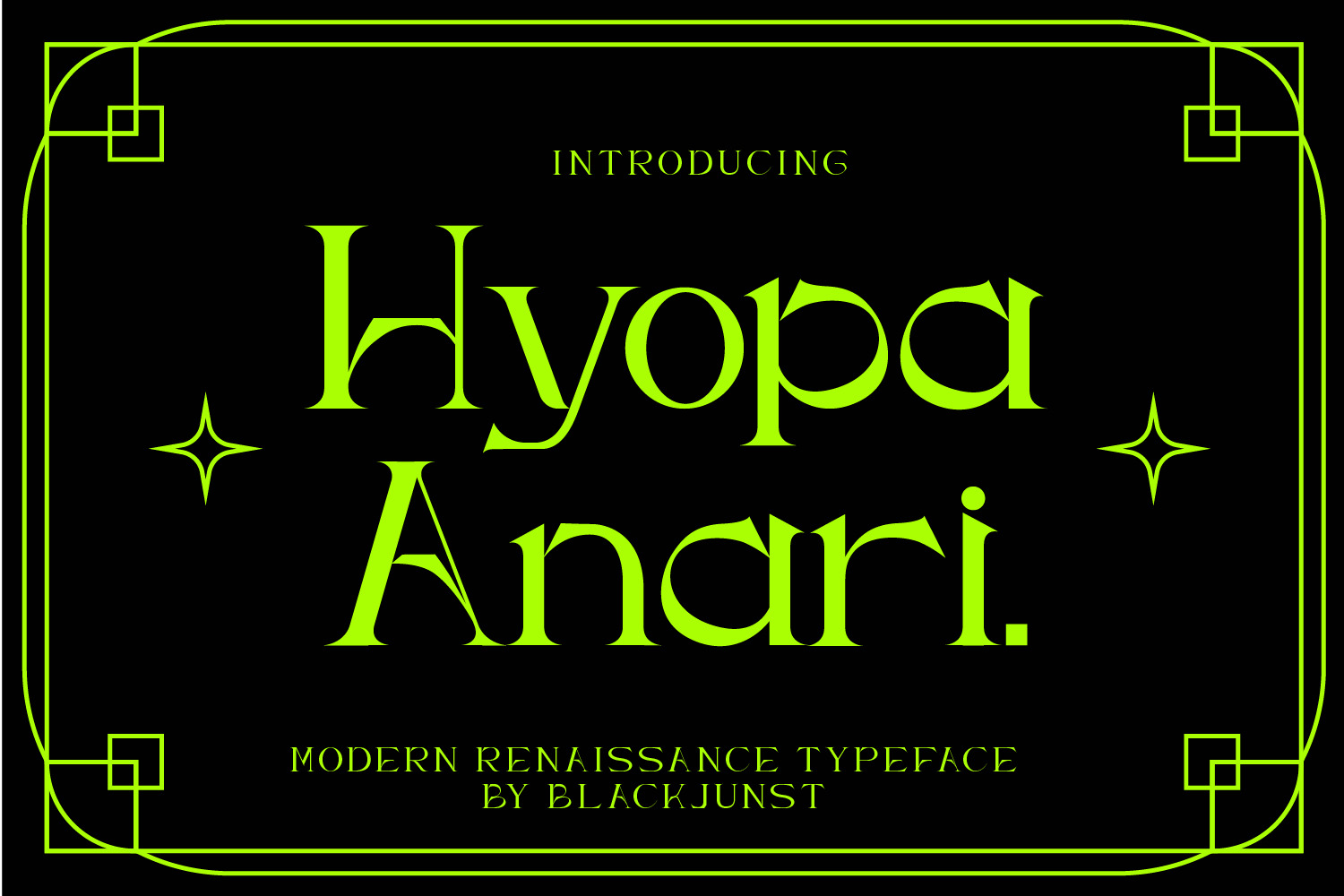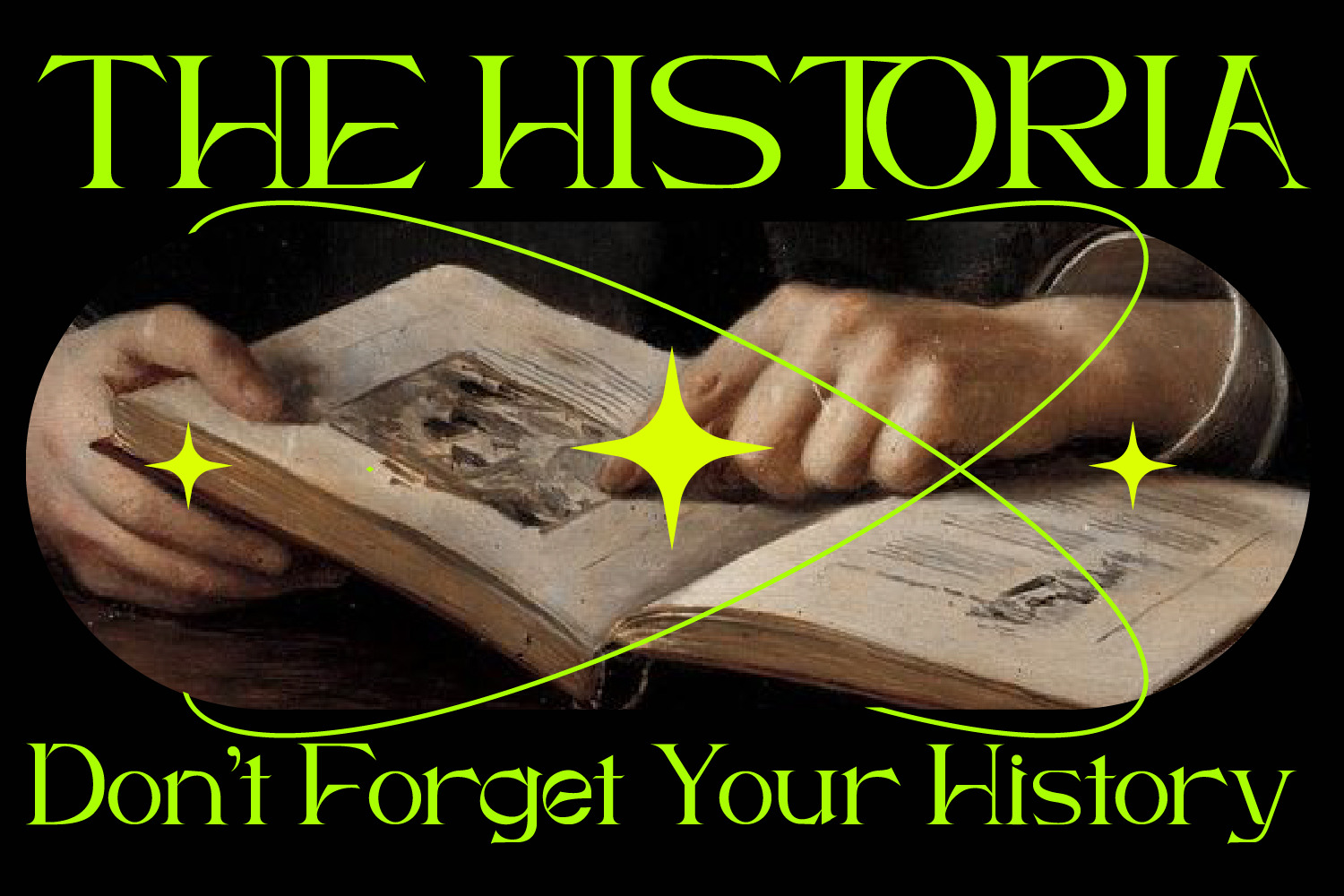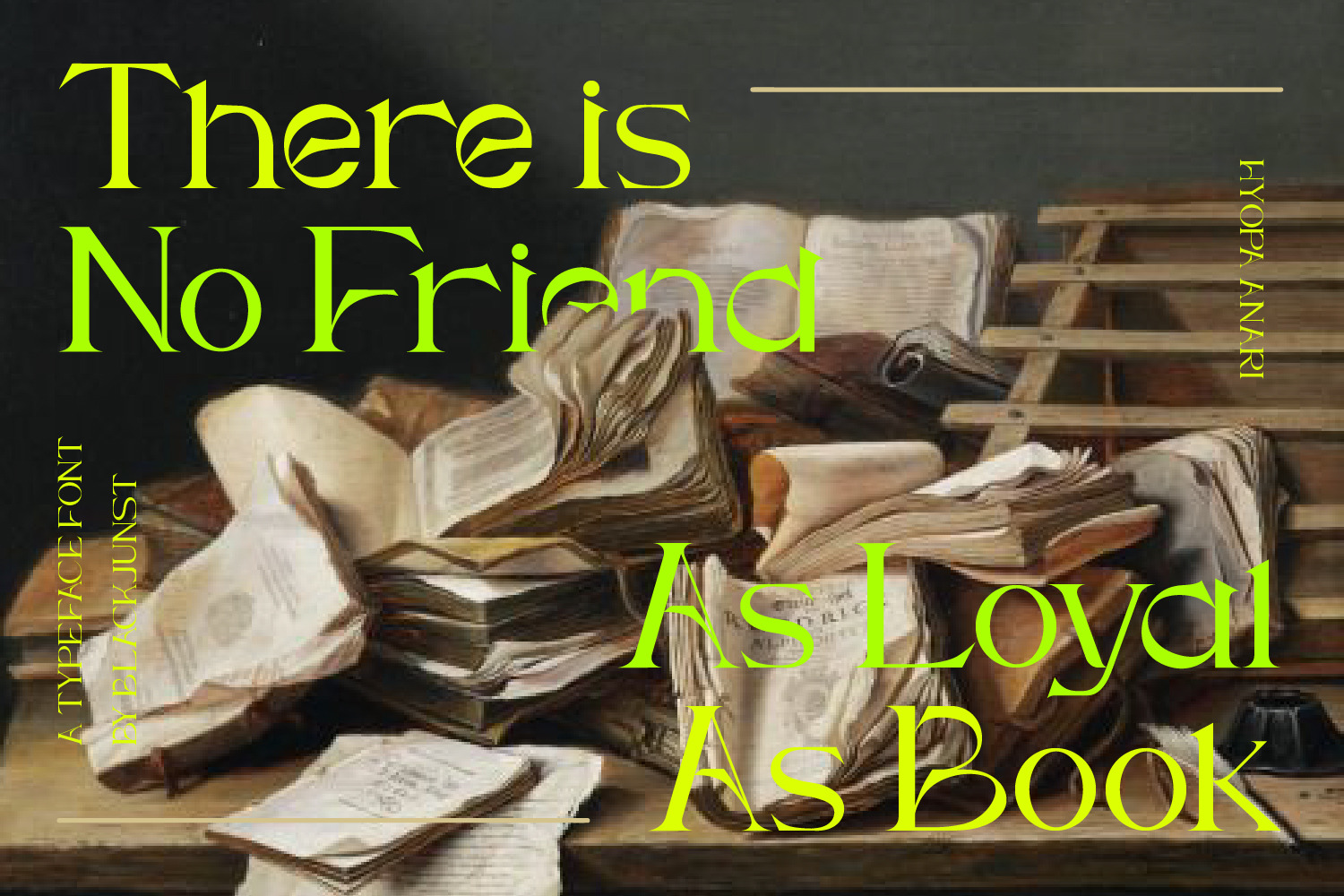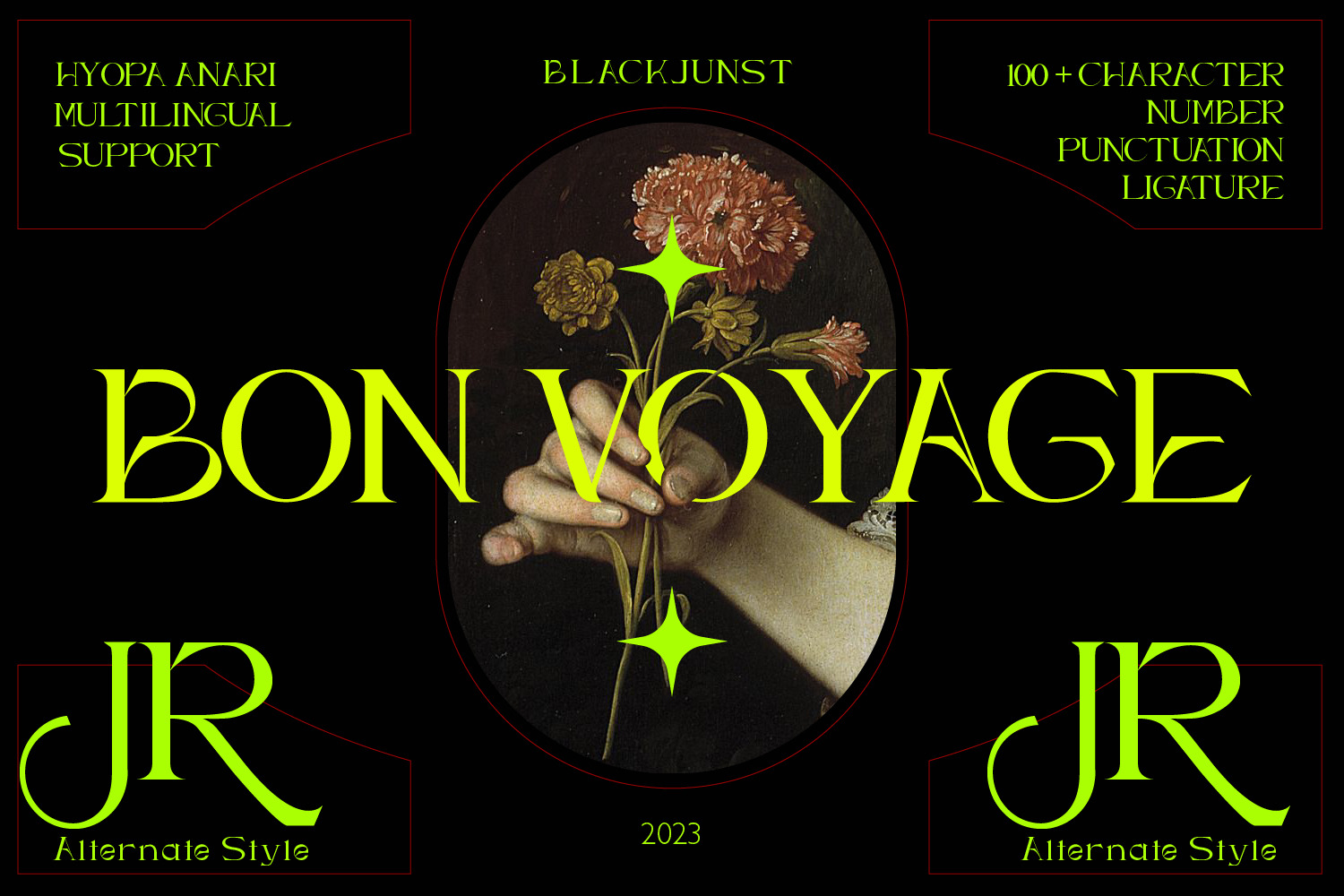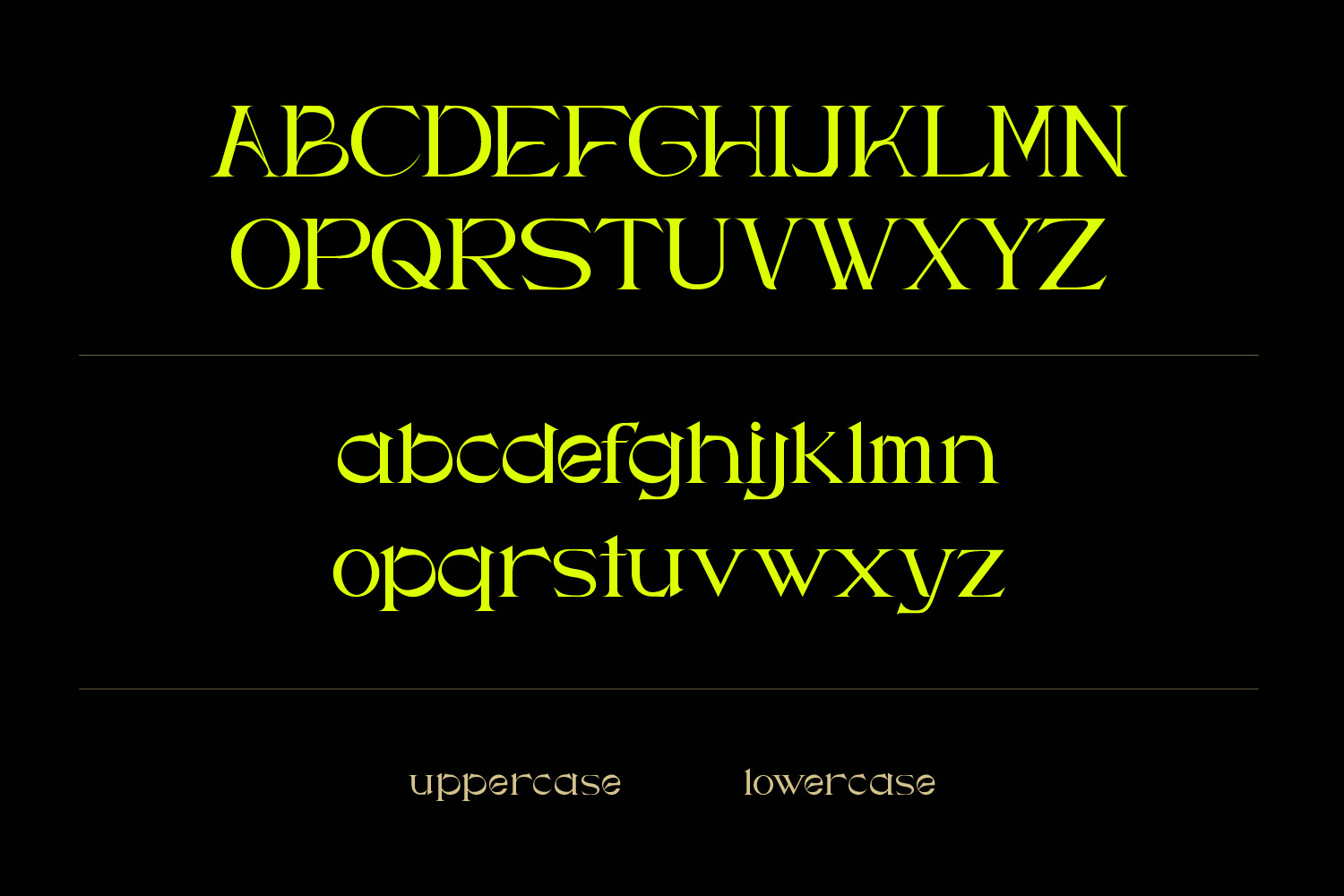
Hyopa Anari - Serif Font
Introducing our new typeface, Hyopa Anari A modern, unique and serif typeface that comes with a binder and alternative characters that are perfect for creating variety in your designs.
Hyopa Anari is a mix of sweet curves with lowercase sets and strong impact fonts for uppercase sets making it even more elegant this typeface will allow you to create stunning and original layouts for print and web, Branding, Logo Design, invitations, quotes, blog headers , posters and advertisements. use it endlessly.
Features
Full set of uppercase, lowercase letters
Ligatures
Alternates
Numbers, symbols & punctuation
Characters with accents
Supports Multiple Languages